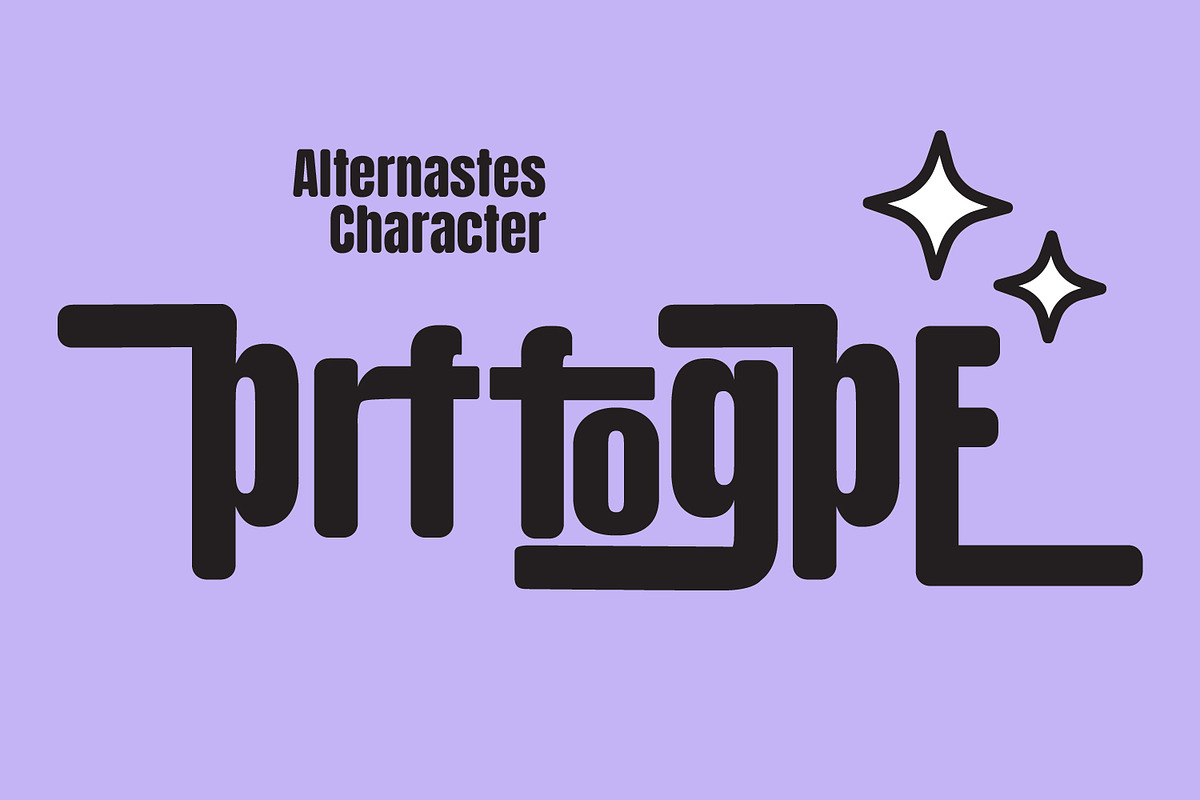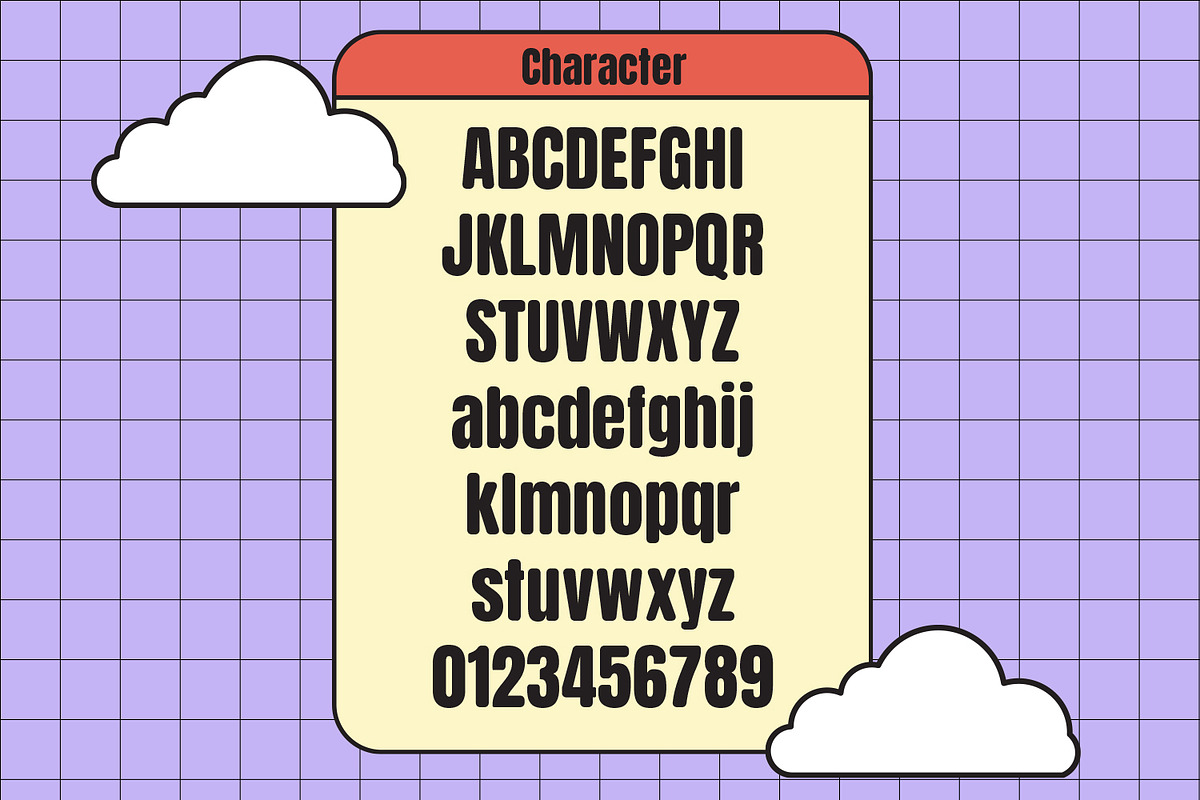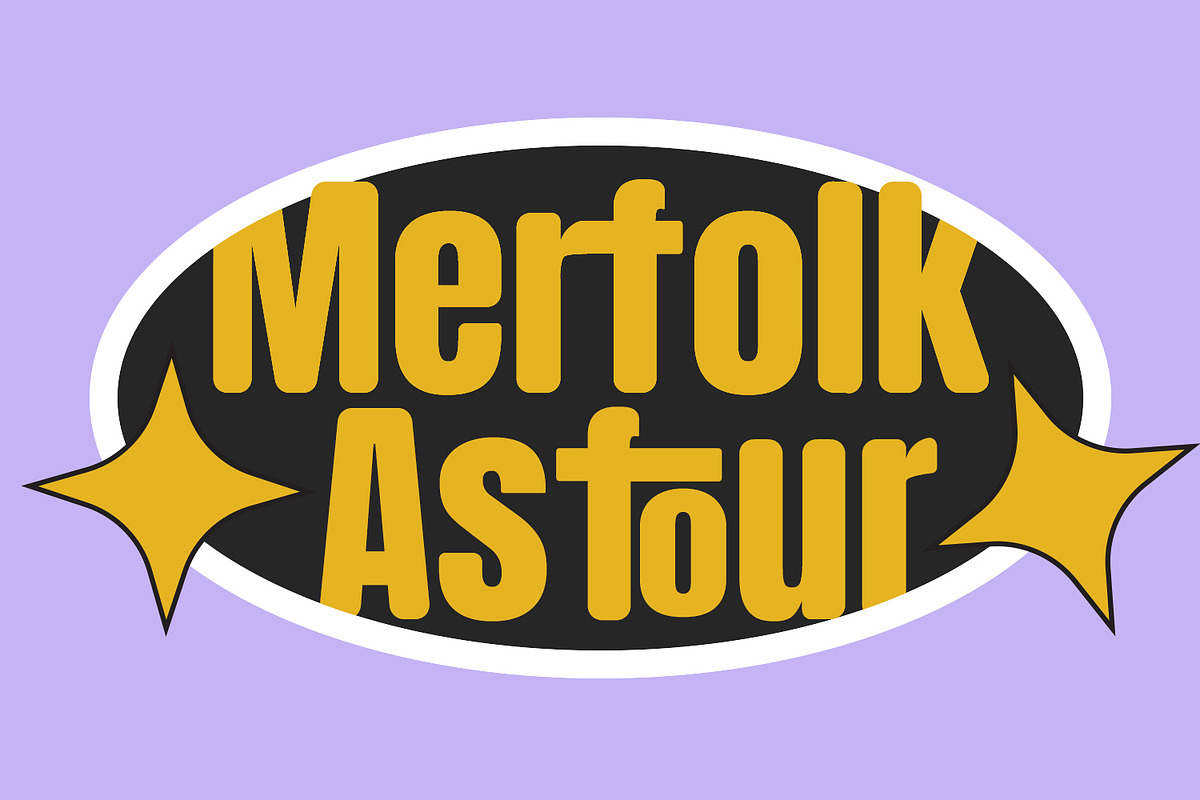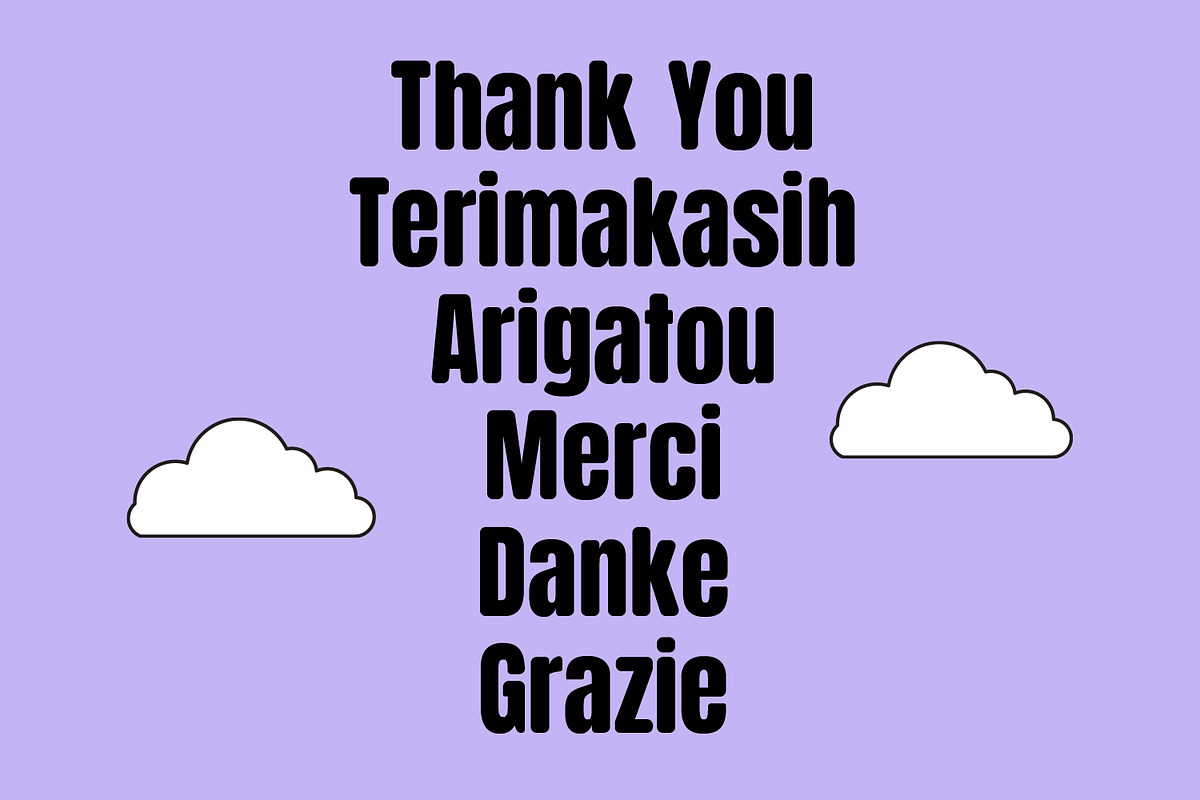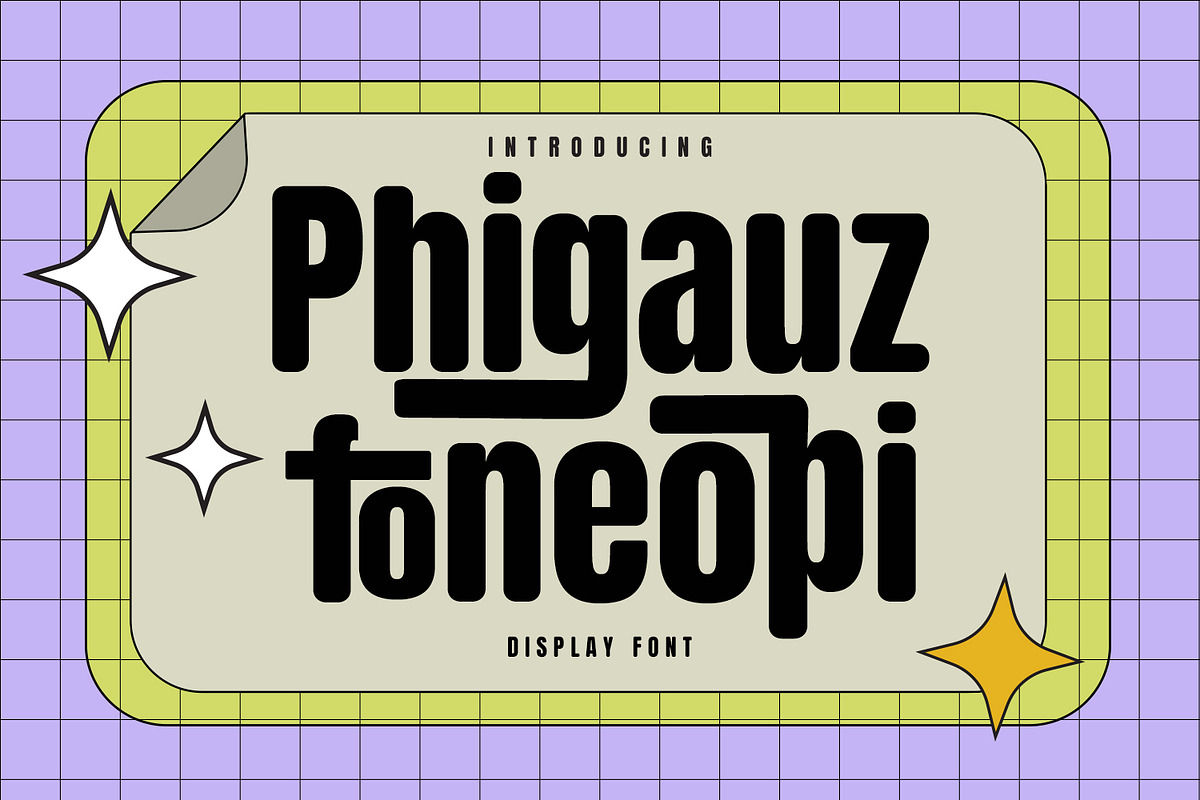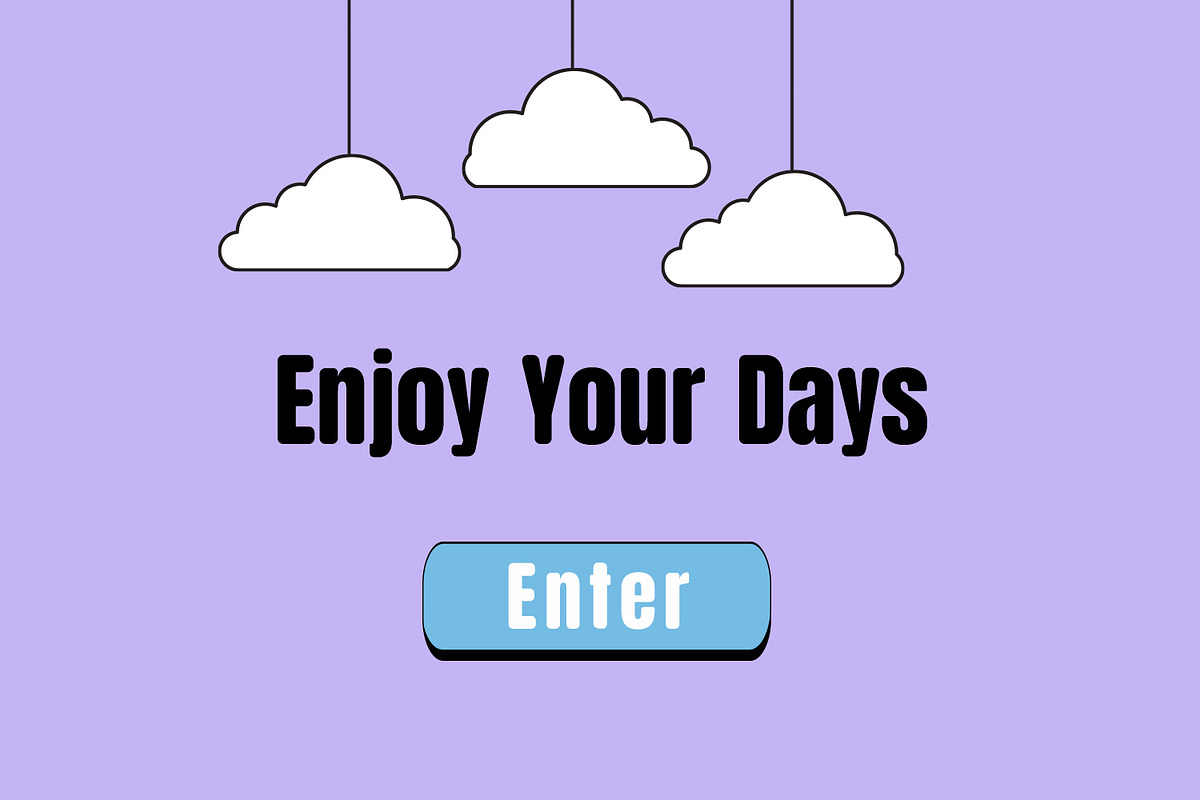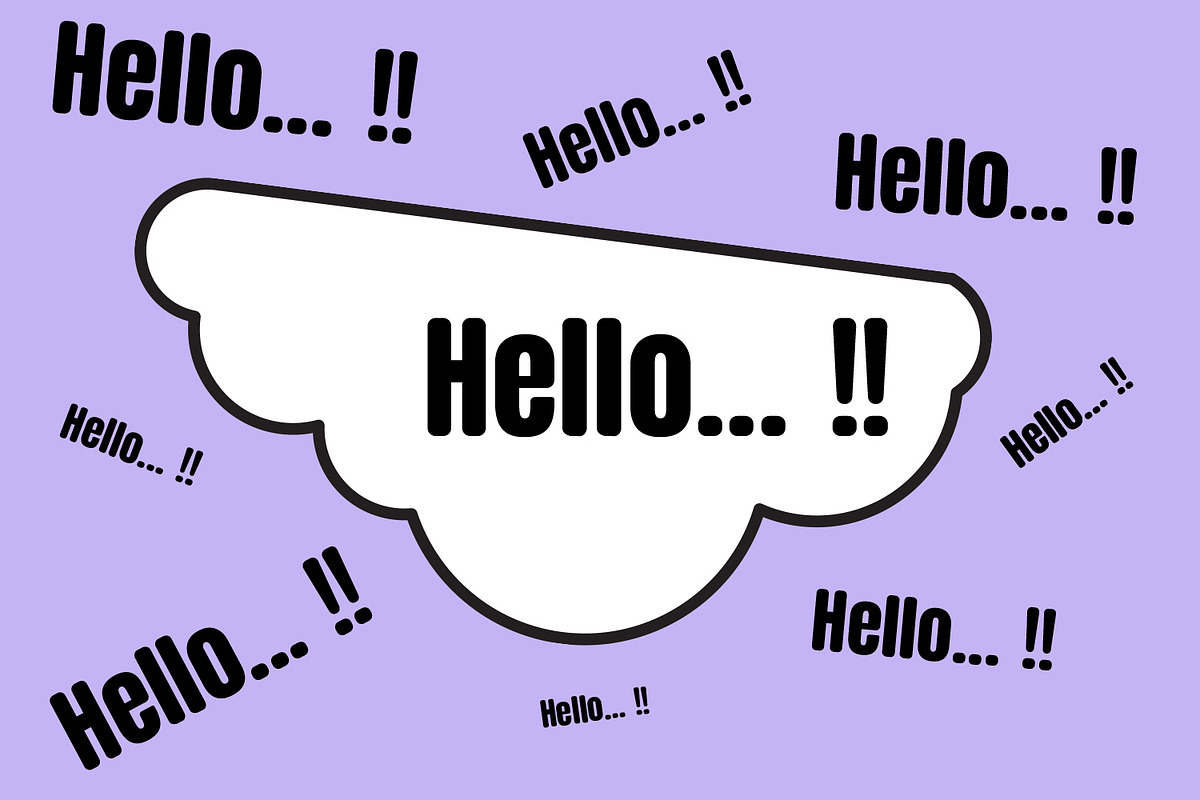
Phigauz Foneopi Sans Serif Rounded
Phigauz Foneopi is a rounded modern condensed sans serif font. With bold tall and smooth stroke, fun character with a bit of ligatures and alternates. To give you an extra creative work. Phigauz Foneopi font support multilingual more than 100+ language. This font is good for logo design, Social media, Movie Titles, Books Titles, a short text even a long text letter and good for your secondary text font with sans or serif. Make a stunning work with Phigauz Foneopi font.